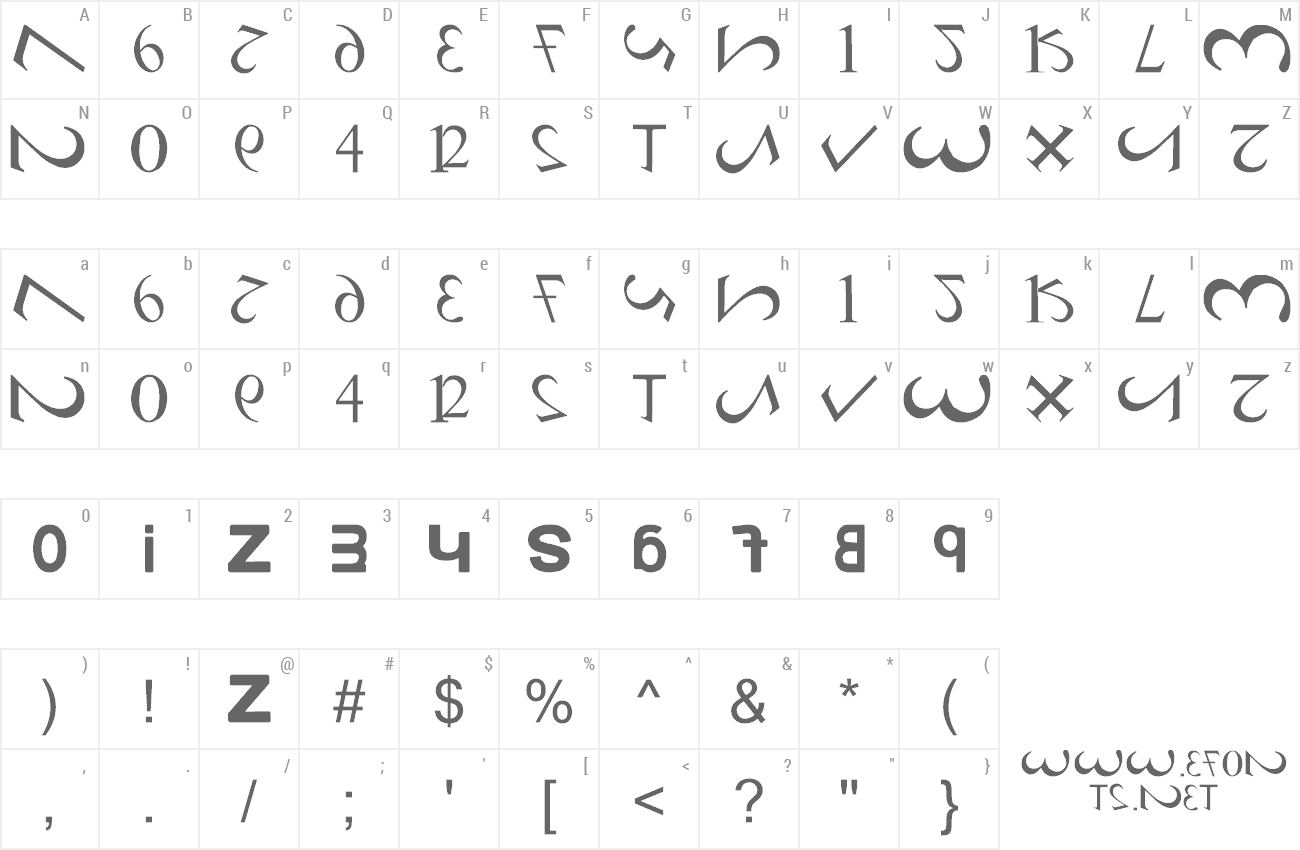
| Font name: | Numero |
| Author: | Avinash Singh |
| Note by Avinash Singh | |
| created a typeface where alphabets become numbers and vice-versa. the trick here was to use very common existing typefaces for the alphabets (times new roman) and another for the numbers (arial)! |